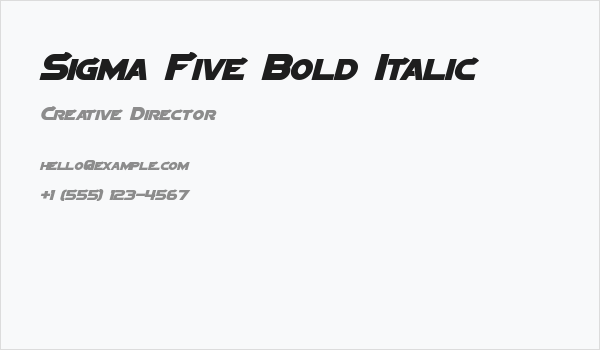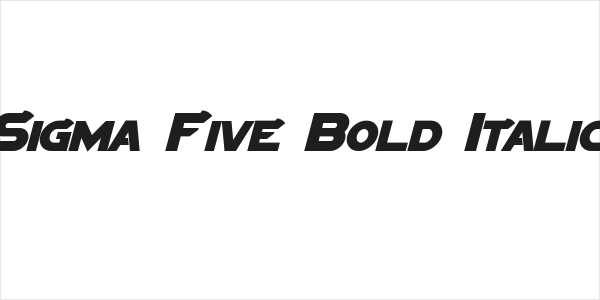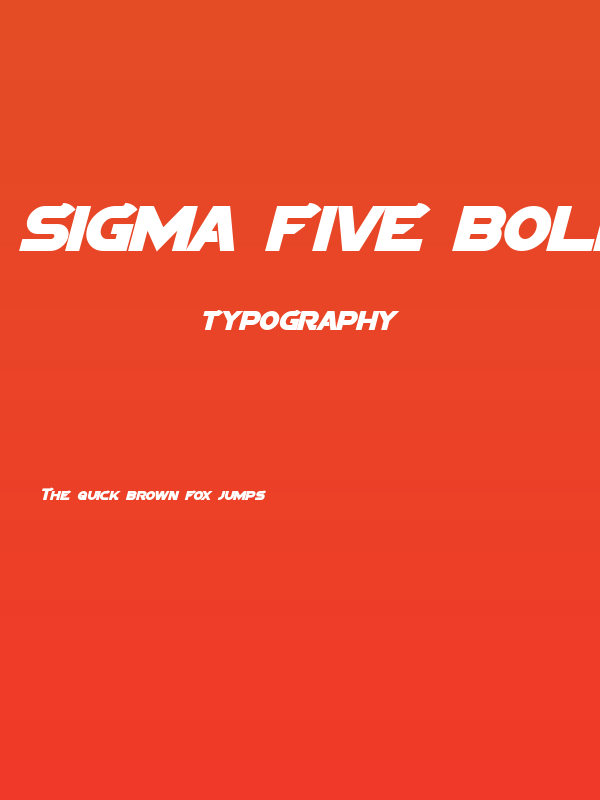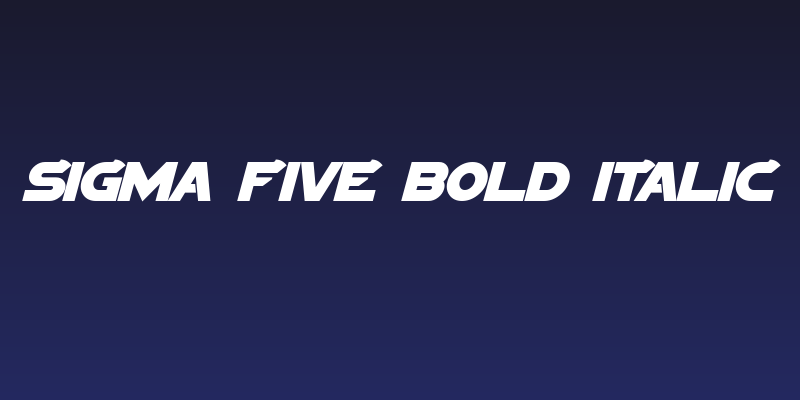
Sigma Five Bold Italic Font
Sigma Five Bold Italic Description
This font exhibits a bold, italicized style with a modern and dynamic appearance. The characters are designed with sharp angles and a forward-leaning slant, giving a sense of motion and energy. The strokes are thick and consistent, providing a strong visual impact. The uppercase letters are particularly striking, with unique geometric shapes that enhance the font's futuristic feel. The numbers and special characters maintain the same boldness and angularity, ensuring uniformity across all glyphs. This font is ideal for projects that require a bold statement or a modern, edgy look.
| Use Case | Logos, Headlines, Branding |
| Proposed Projects | Ideal for branding, sports team logos, technology-themed designs, and dynamic advertising materials. |